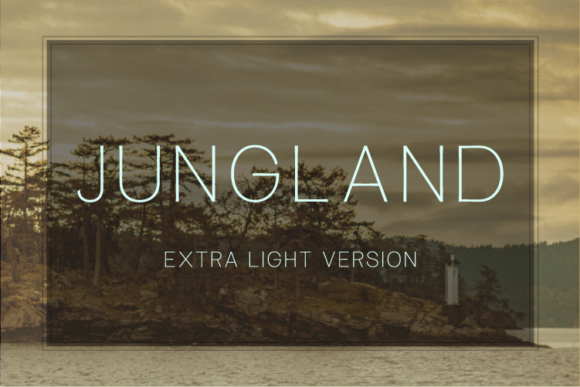
**Embrace Elegance with Jungland Extra Light Font: Timeless Sans Serif for Captivating Designs**
Step into the world of typographic excellence with Jungland Extra Light Font – a geometric sans serif masterpiece that exudes warmth, invitingness, and timeless elegance. Crafted by the skilled hands of Nan Design, Jungland presents a symphony of carefully executed curves, angles, and strokes that effortlessly blend together to create a captivating visual experience.
**More Than Just Letters, an Expression of Art and Emotion**
Jungland Extra Light transcends the boundaries of mere typography, reaching the realm of art and emotional connection. Its subtle imperfections, reminiscent of human touch, infuse your designs with a captivating sense of authenticity and personality. Let Jungland Extra Light become the voice of your brand, whispering sophistication and style to your audience.
**Headlines That Speak Volumes, Quotes That Resonate, Text that Embraces Clarity**
Whether gracing headlines, quotes, or short text passages, Jungland Extra Light commands attention with its remarkable versatility. Its carefully balanced structure ensures optimal readability, inviting your audience to immerse themselves in your words. Jungland Extra Light empowers designers with the freedom to create captivating layouts that captivate and inform, leaving a lasting impression on every reader.
**Craft Designs that Resonate, Leaving a Lasting Impression**
Harness the power of Jungland Extra Light to elevate your designs to new heights. Let its modern, clean lines add a touch of sophistication to your marketing materials, website, social media presence, and more. Jungland Extra Light seamlessly adapts to various design styles, blending effortlessly with your unique creative vision.